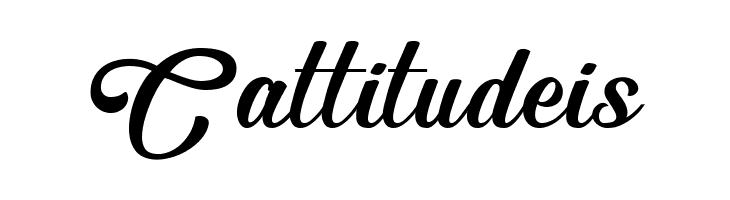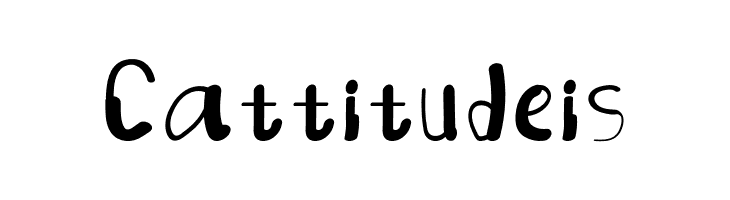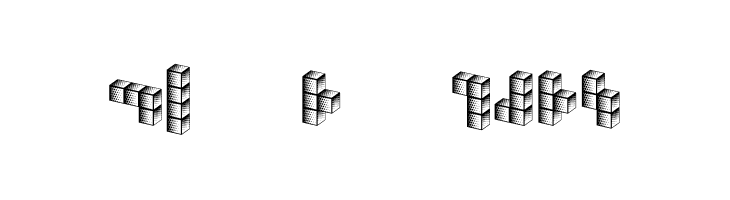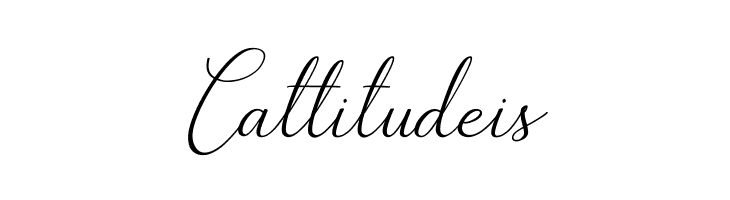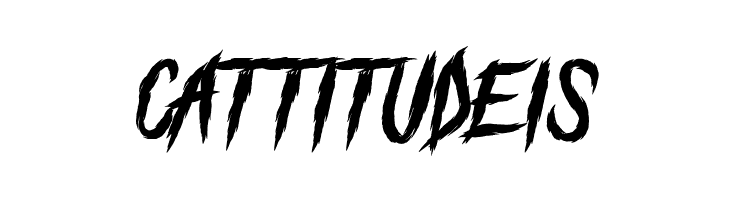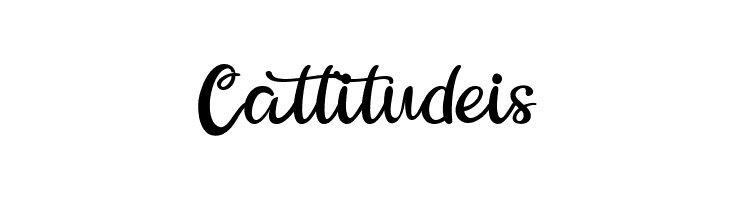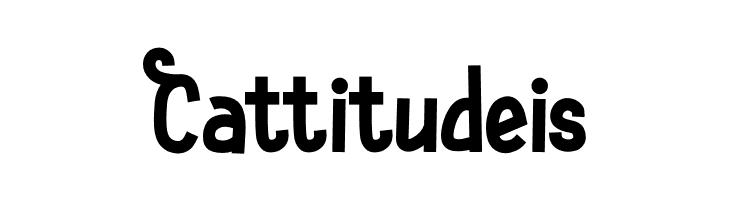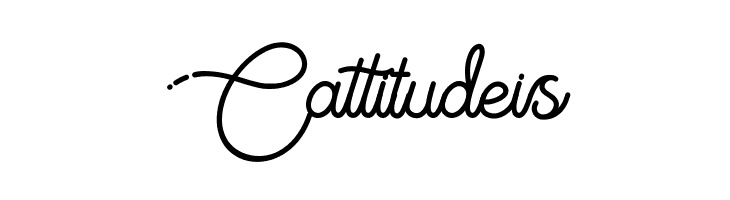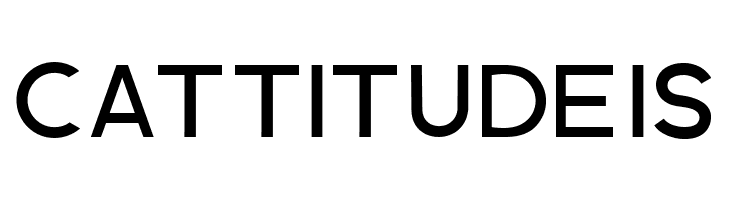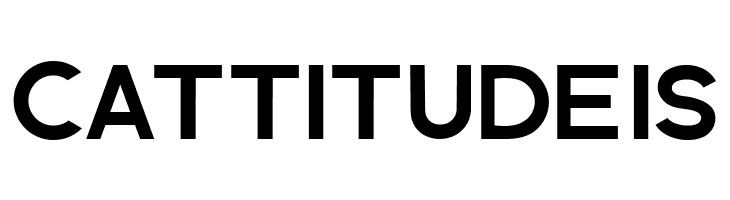
• Tempest Apache Super-Italic
A modern, italicized font with a sleek, angular design and a futuristic aesthetic.
• Tempest Apache Title
A futuristic, geometric font with angular edges and a monospaced appearance.
• Tempest Apache Title Italic
A futuristic, angular italic font with a dynamic and modern style.
• Temple of Gong Regular
A decorative font inspired by ancient architectural elements, featuring intricate line patterns.
• Tequila Sunset
A whimsical, playful font with decorative, flowing curves and a handwritten feel.
• Teraja
A playful, handwritten font with bold, rounded strokes and a casual style.
• Terbium - Personal Use Only
A distressed, textured font with a rugged, edgy appearance.
• Tetriso Regular
A 3D block font with an isometric, retro gaming style.
• Tetriso Regular
A 3D block font with a retro, video game-inspired design.
• Texas Drop
• TFonts
• Thankies
A bold, playful font with rounded characters and whimsical curls.
• Thasadith Bold
A bold, modern sans-serif font with smooth curves and consistent stroke width.
• Thasadith Bold Italic
A modern, bold, and italicized font with a sleek and dynamic style.
• Thasadith Italic
A sleek, modern italic font with clean lines and elegant curves.
• Thasadith Regular
A modern, clean sans-serif font with balanced proportions and consistent stroke width.
• Thatcher
A lively and elegant script font with fluid, connected letterforms.
• Thatcher
A bold, flowing script font with high contrast and elegant curves.
• The Athalita
A sophisticated script font with elegant, flowing letterforms.
• The Attention
An elegant, cursive font with fluid, graceful strokes.
• The Bad Weather Demo
A graceful, flowing script font with elegant, interconnected strokes.
• THE BAZOOKA [Demo]